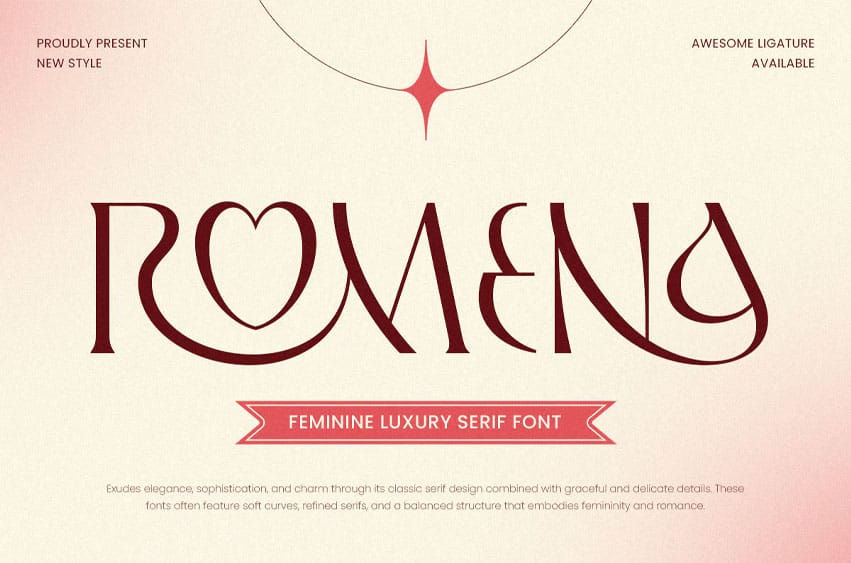
Romena Font is a feminine luxury serif font designed to exude beauty, elegance, and timeless charm. Its soft curves, refined contrast, and graceful serifs make it a perfect choice for branding, wedding invitations, high-end beauty packaging, and editorial headlines.
Inspired by classic typography with a modern twist, Romena blends delicacy with sophistication. Whether you’re creating logos, social graphics, or fashion layouts, this font ensures your message feels polished, feminine, and stylish.
Let Romena elevate your work with poise and personality — a serif font crafted for graceful storytelling.
Romena – Feminine Luxury Serif Font Features
- Elegant serif style with soft, feminine curves
- Ideal for beauty brands, weddings, and editorial design
- Punctuation, numbers, and symbols included
- Uppercase and lowercase letters
- OpenType features for stylistic alternates and ligatures